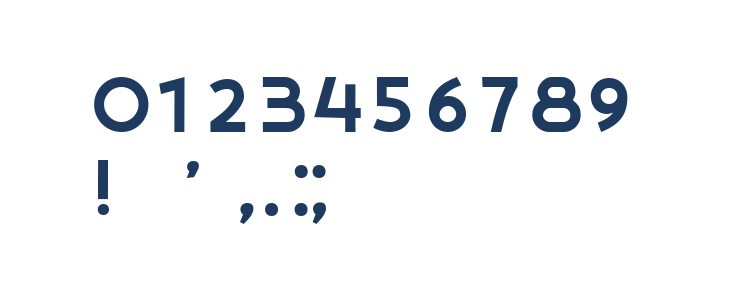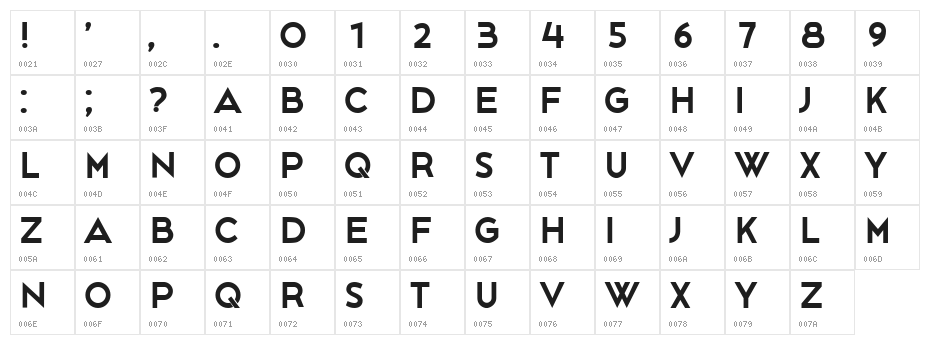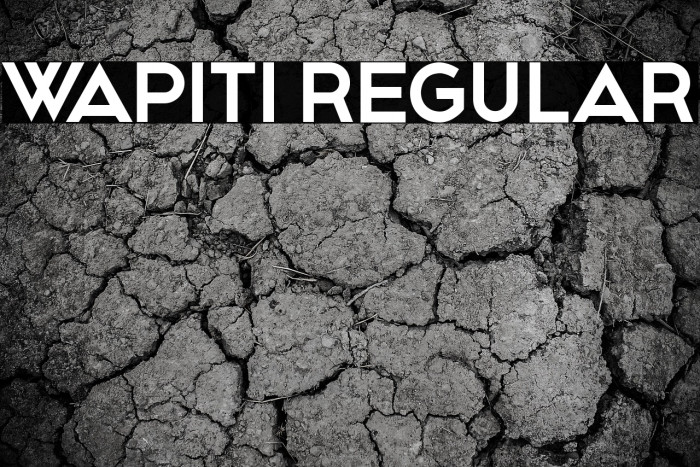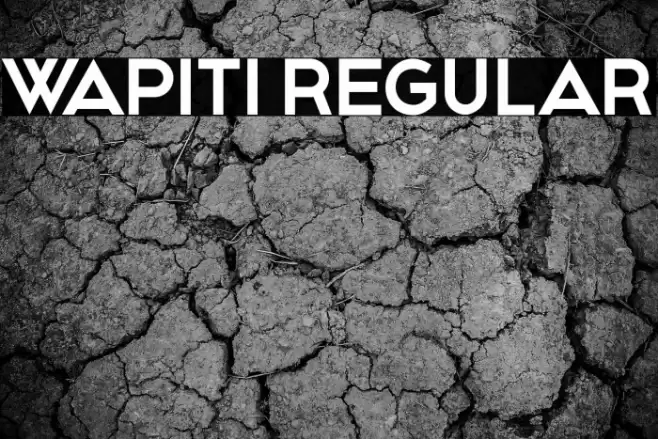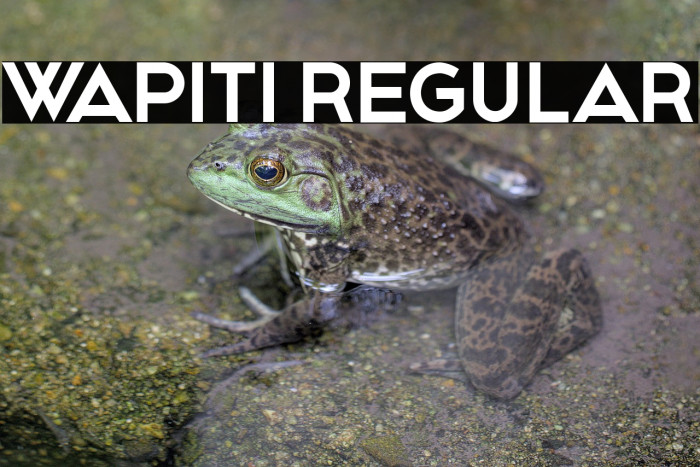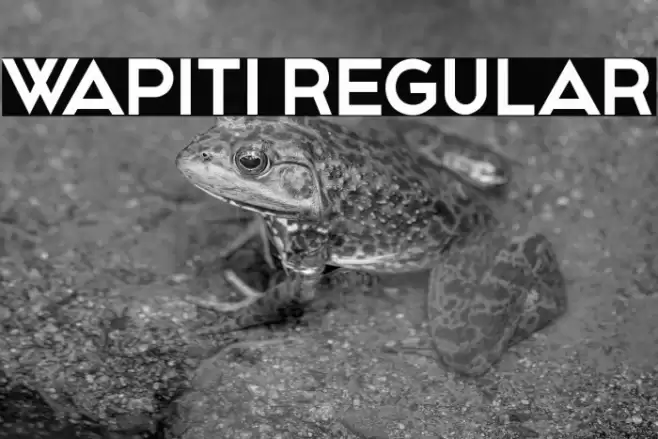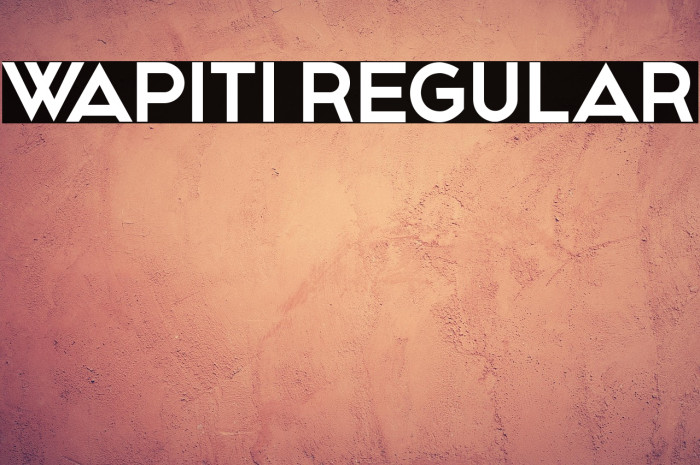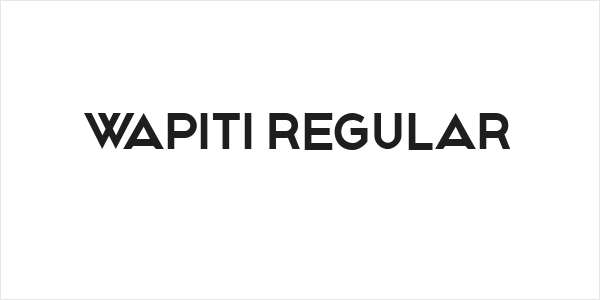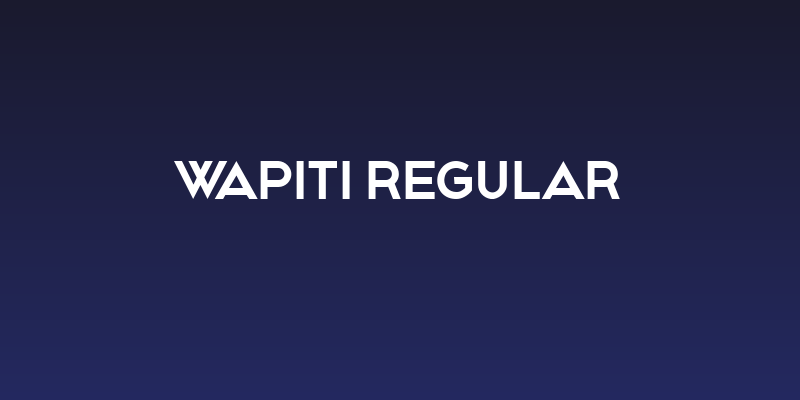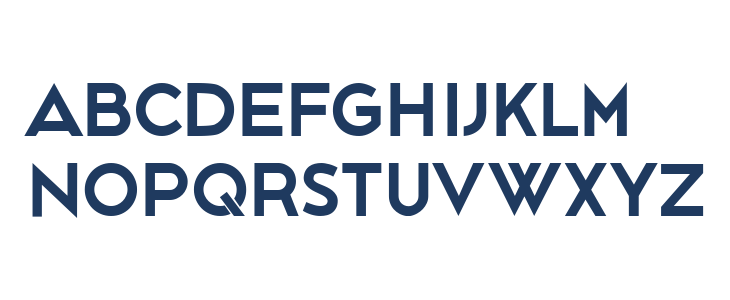
Wapiti Regular Font
Wapiti Regular Description
This font features a bold and modern sans-serif style with clean lines and a geometric structure. The uppercase letters are uniform in height, providing a strong and cohesive appearance. The lowercase letters maintain the same geometric precision, ensuring readability and a contemporary look. The numerals are consistent with the overall design, offering clarity and balance. The special characters are designed to complement the alphabet, maintaining the same bold and structured aesthetic. This font is ideal for projects that require a modern and impactful visual presence.